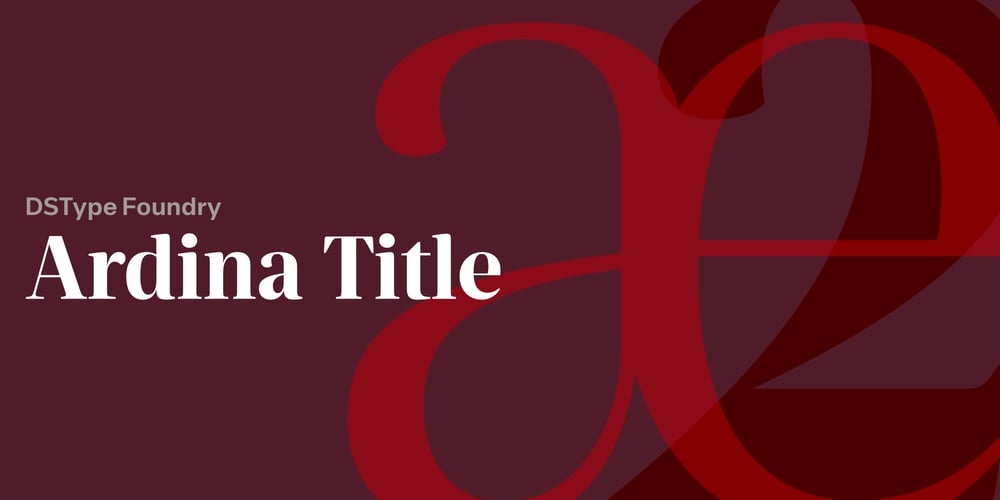
Ardina Title Font Family was designed by Dino dos Santos, Pedro Leal and published by Monotype. Ardina Title contains 10 styles and family package options. Ardina was designed for the Portuguese newspaper Jornal de Notícias. Right after the exclusivity period, we decided it was a wonderful addition to our type library, therefore we redesigned it and included an extended set of characters. Ardina is a soft and warm news typeface, with five weights and matching italics, three grades (Display, Title, and Text), and slightly narrow proportions but with a very nice x-height. It’s the right typeface for a serious newspaper that intends to achieve a very contemporary feeling.